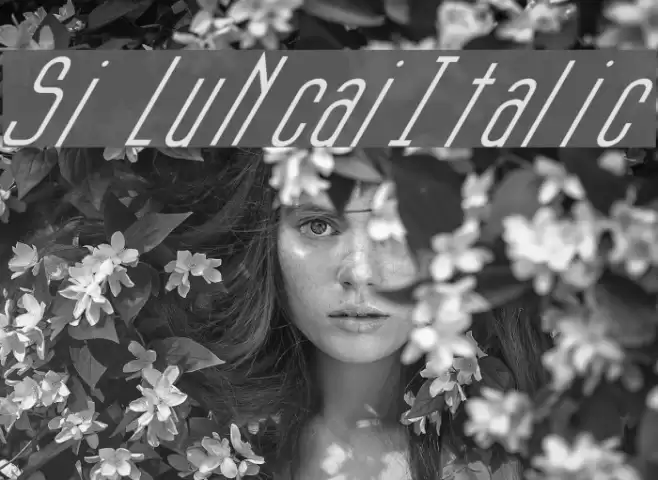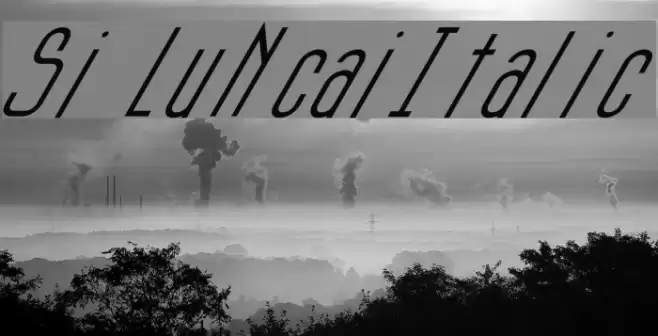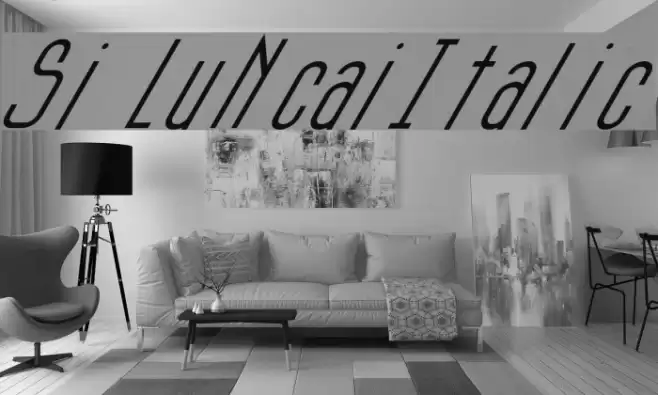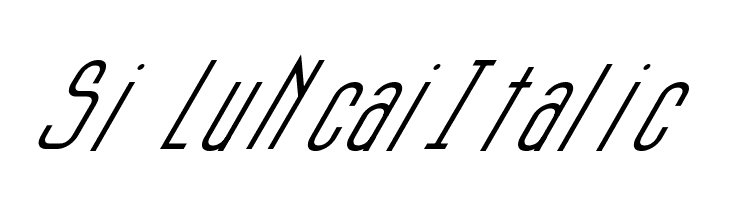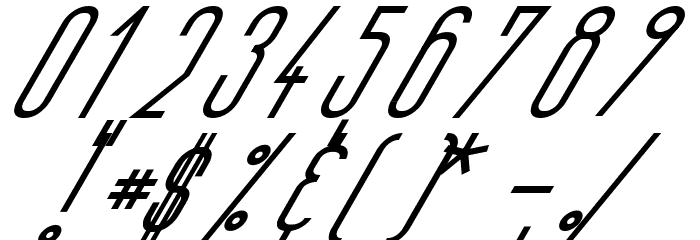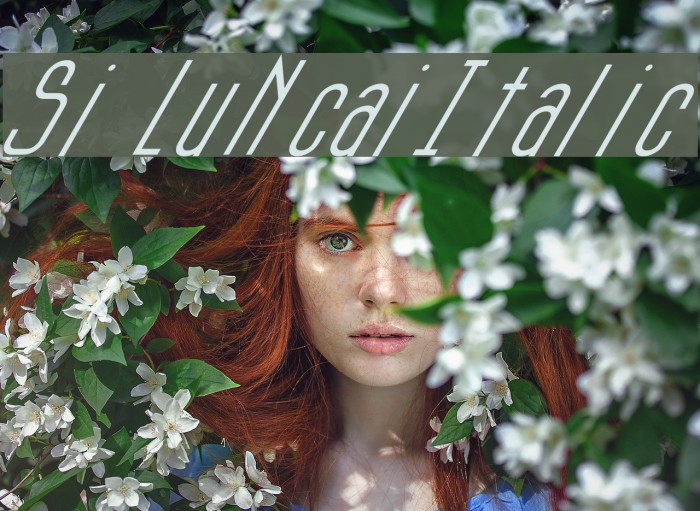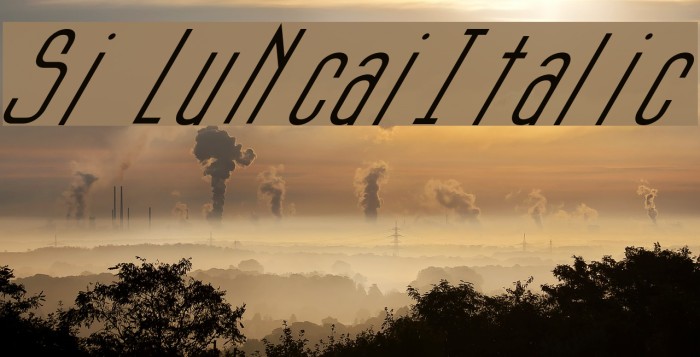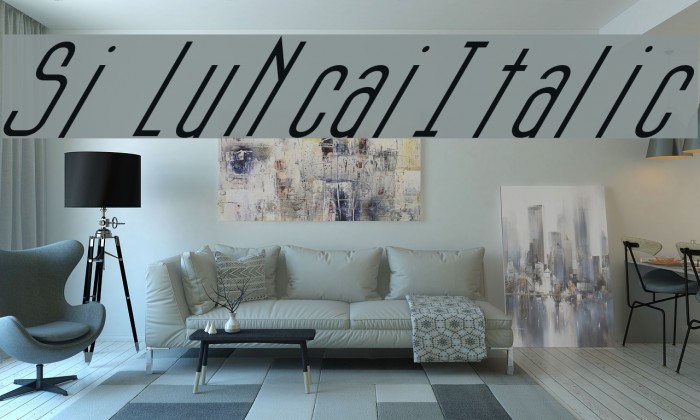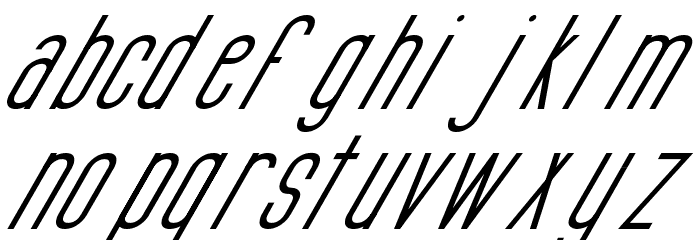
Si LuNcaiItalic
This font features a sleek and modern italic style with elongated, narrow characters that convey a sense of motion and elegance. The uppercase and lowercase letters maintain a consistent slant, enhancing the dynamic appearance. The numerals and special characters are designed to complement the alphabet, maintaining the same italicized form. The overall design is clean and minimalistic, making it suitable for contemporary projects that require a touch of sophistication.
A modern, italic font with elongated, narrow characters.
- Proposed Projects: Ideal for fashion magazines, modern branding, dynamic posters, and elegant invitations.
- Width: Condensed